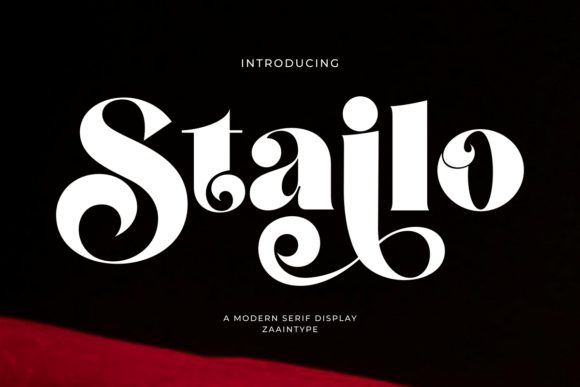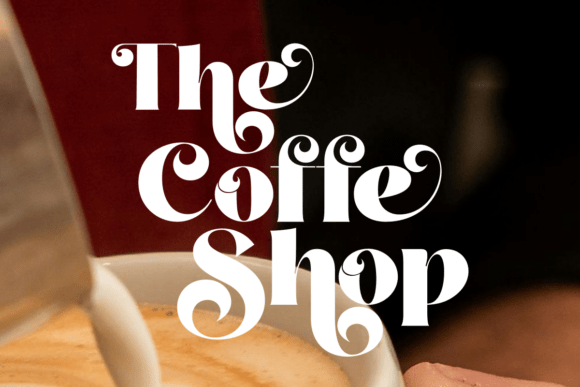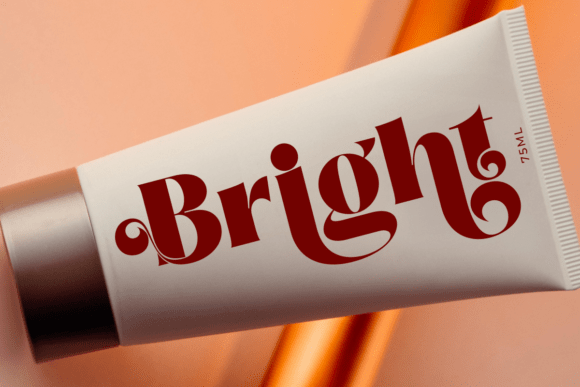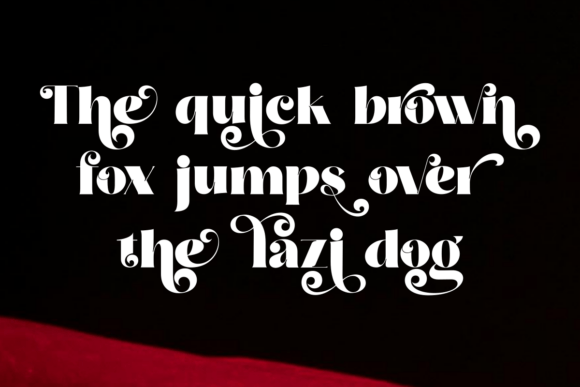
Stailo Font: Elegant Serif Typography for Modern Branding & Logo Design
About the Stailo Font
Introducing the Stailo Font, a beautifully crafted typeface designed to elevate your creative projects. Stailo is a modern serif font with sharp contrast and short, clean serifs. Elegant, confident, and stylish — perfect for fashion branding, luxury editorials, and packaging design that demands attention. Available in two expressive styles: Regular and Oblique
Stailo Font Usage Examples